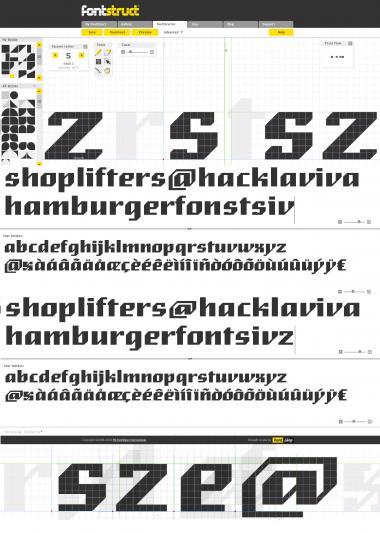
This is an image of the first sketch... many improvments have to be made, like the spine of the "s" and the "r".
Spacing is also an issue... but I guess I'll finish/space the font in Fontforge...
A good, clean, well balanced design ... will we be seeing an Uppercase?
The idea was to get it working in Fontforge, but soon we ran out of time. While I was updating/compiling the latest version fo Fontforge I decided to sketch the rest of the lowercase and test it out here.
As you can see, I've tried some diacritics this morning. During this week I'll try to develop the numbers first, and the uppercase characters. Stop by form time to time and leave me some feedback! ;)
I still have problems with the "s" and the "x" :(
I had a look at the s and z and have no ideas to offer about the z. The only thing I thought for the s is shown below ... a very small change, but it echoes the diagonal.
Love this font ... good work
Because you ask I permet myself an attemp for the Z, just small cuts according to the rest of the alphabet
Also I found the æ to skinny and the @ to big ;) it's on ly suggestion
You should do the Uppercase your concept is strong enough to be a very interesting font
@ p2pnut:
Thanks for the feedback! It got me thinking and trying out new proportions and drawings. I think the small cuts will be troublesome in the future — the font would have to have diagonal cuts of 1 square in every connector ou terminal...
Right?
I'd like it to remain really simple and straight cut.
It also raises the trouble of having terimals/serifs in the upper and lower halves of the letter. I think it works better only in the upper half — it keeps the eyes/negative spaces open.
What do you think?
@Upixel:
Same with the "z". I think it provides a simpler and more open look without the small cuts and lower terminal. Although after trying your suggestions, I corrected the proportions and it seems better now.
Scaled down the "@" sign... where you suggesting this?
Regarding the "æ" you're absolutely right. Much better now, thanks!
Yes, I think having the terminals/serifs only at the top gives a cleaner look ... should the c have one?
Good point. Took the opportunity to calibrate the length of the lower half also.
Nice improvement I love your solution for the Z and It's smart from p2pnut to include the C as well
You reduce the height of @ I think the proportion is better like this
As promised I will continue to work on this.
Today I did the first numbers... Opted with the lining figures—thought they would adjust better to general drawing.
They're still a bit quirky (too many curves and diagonals to deal with). I think the worst is still number "4"
Any suggestions?
Uppercase are comming. GREAT!
I personnally found the MN to square if you compare with the rest of the alphabet. And why not that can be ok... I'm just questionning myself about it
The kerning J is to be review
If you write word like FIJI you'll see what I mean
Yes. Working on the numbers and the uppercase more or less at the same time.
Regarding the "M" and the "N" I have to agree. Still trying some solutions (see the comparison below). I had the same problem designing diagonal of the the "4", so this time I decided try a more "square" approach. Still not sure what to do, though.
When I finish the drawings of the uppercase I'll address the spacing, hanks for the tip on the "J".
The uppercase "Z" will also be a problem. Anyway, I'll have to sleep on them till next week... be sure to stop by then, I'll have new ideas!
I like the ammendment to the X.